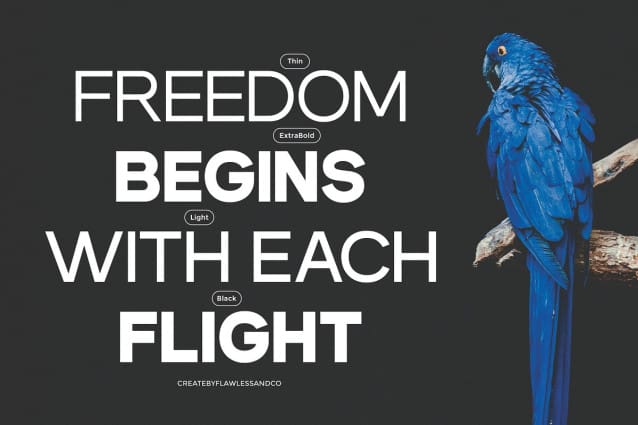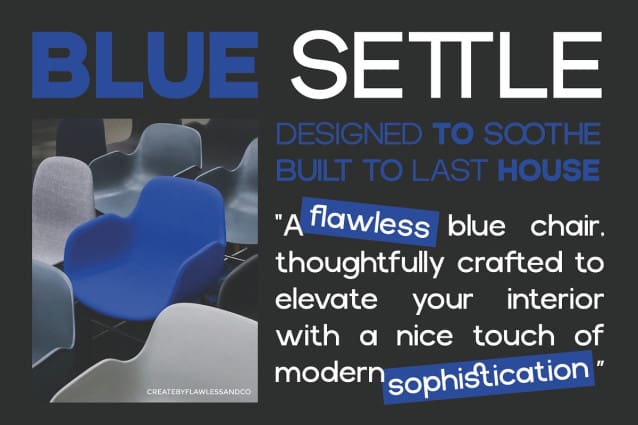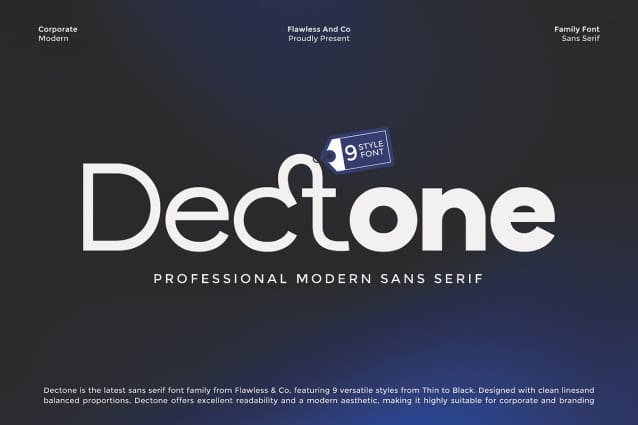
Dectone Font
Dectone Font is a modern sans serif family font crafted for professionals who value clarity, versatility, and clean design. Featuring 9 distinctive styles ranging from Thin to Black, Dectone offers designers the flexibility to create dynamic hierarchies and striking compositions across various media. With its balanced proportions, sharp geometry, and smooth readability, Dectone is built to excel in both print and digital platforms. From corporate branding to editorial layouts, from digital interfaces to product packaging, this font family adapts seamlessly to every project.